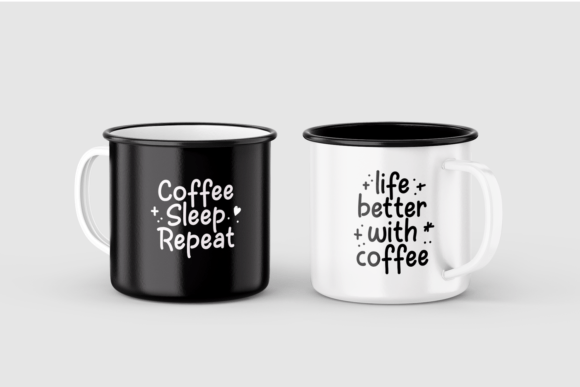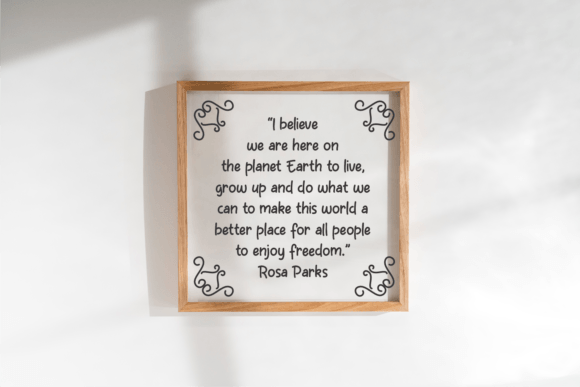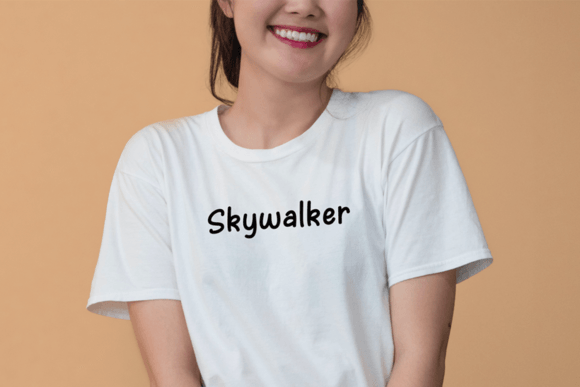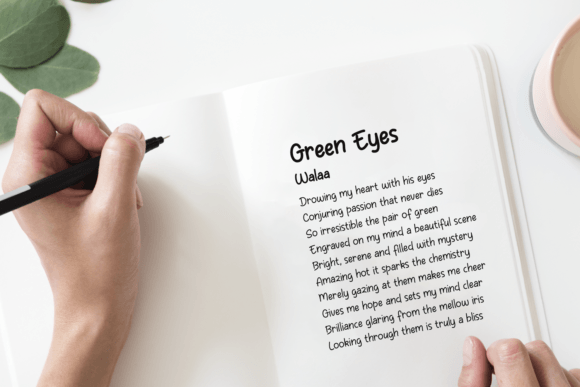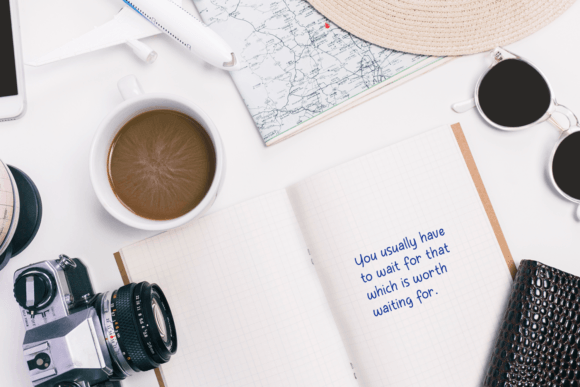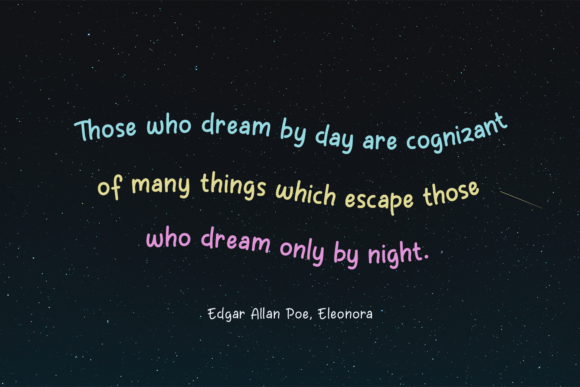
Introduction to Ordinary Notes Font Font
Fonts play a crucial role in design, and the Ordinary Notes Font font is a typeface that brings both character and versatility to any project. Whether you’re working on a branding project, a website, or a print design, the Ordinary Notes Font font offers a unique style that can elevate your work.
Ordinary Notes is a handwritten font that has been adjusted to be clean, minimalist, and modern.
It was inspired by notes Includes full alphabet, numbers, alternates, special characters, and Ligatures.
Key Features of Ordinary Notes Font Font
Why Choose Ordinary Notes Font Font?
The Ordinary Notes Font font is more than just a typeface – it’s a design tool that helps you communicate your message with style and clarity. Its unique character set and versatile design make it suitable for a wide range of applications, from elegant invitations to bold headlines.
With its carefully crafted letterforms and balanced proportions, the Ordinary Notes Font font ensures readability and visual appeal across all mediums.
What makes Ordinary Notes Font font special?
The Ordinary Notes Font font stands out with its unique design, exceptional readability, and versatility across various design applications.